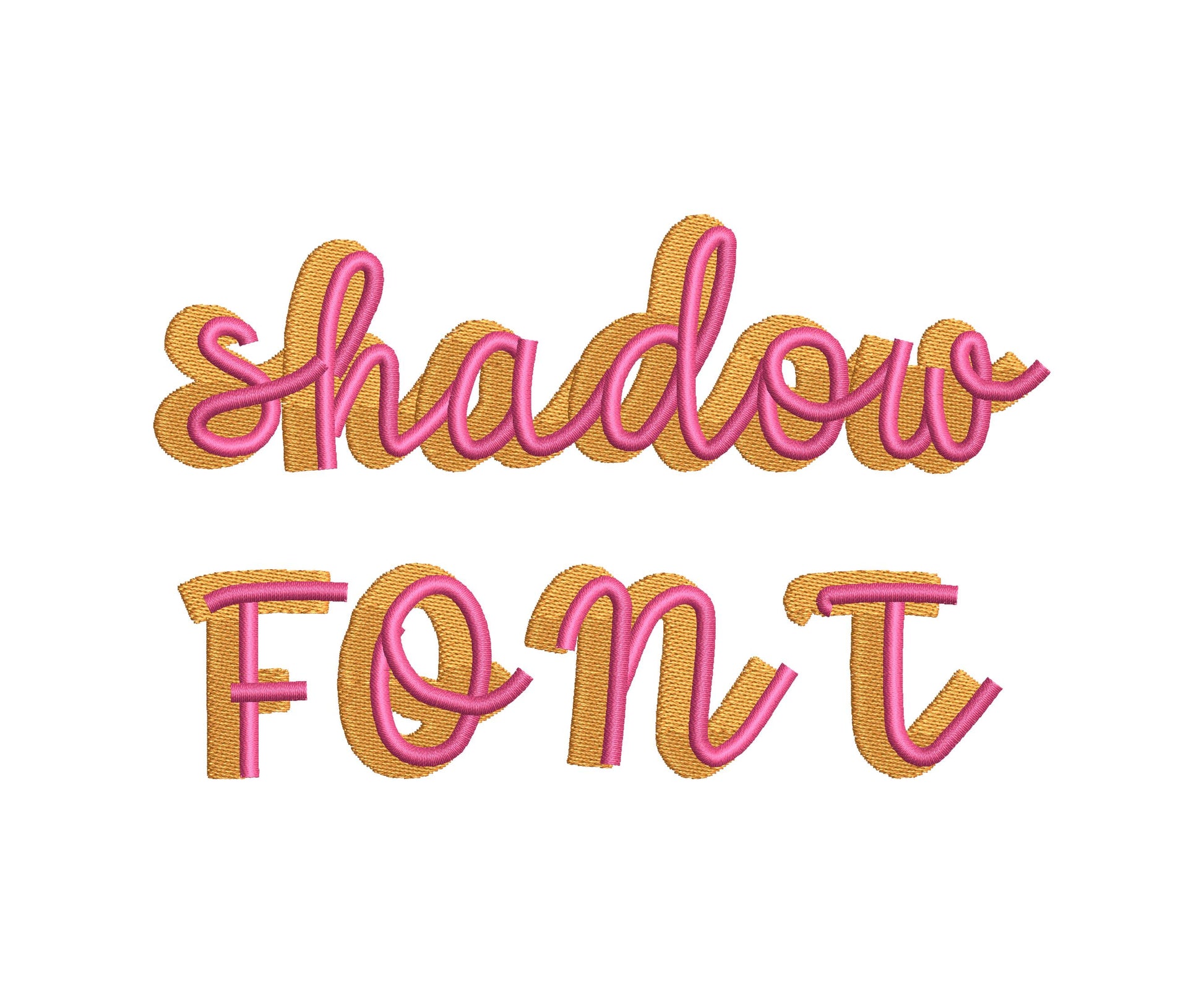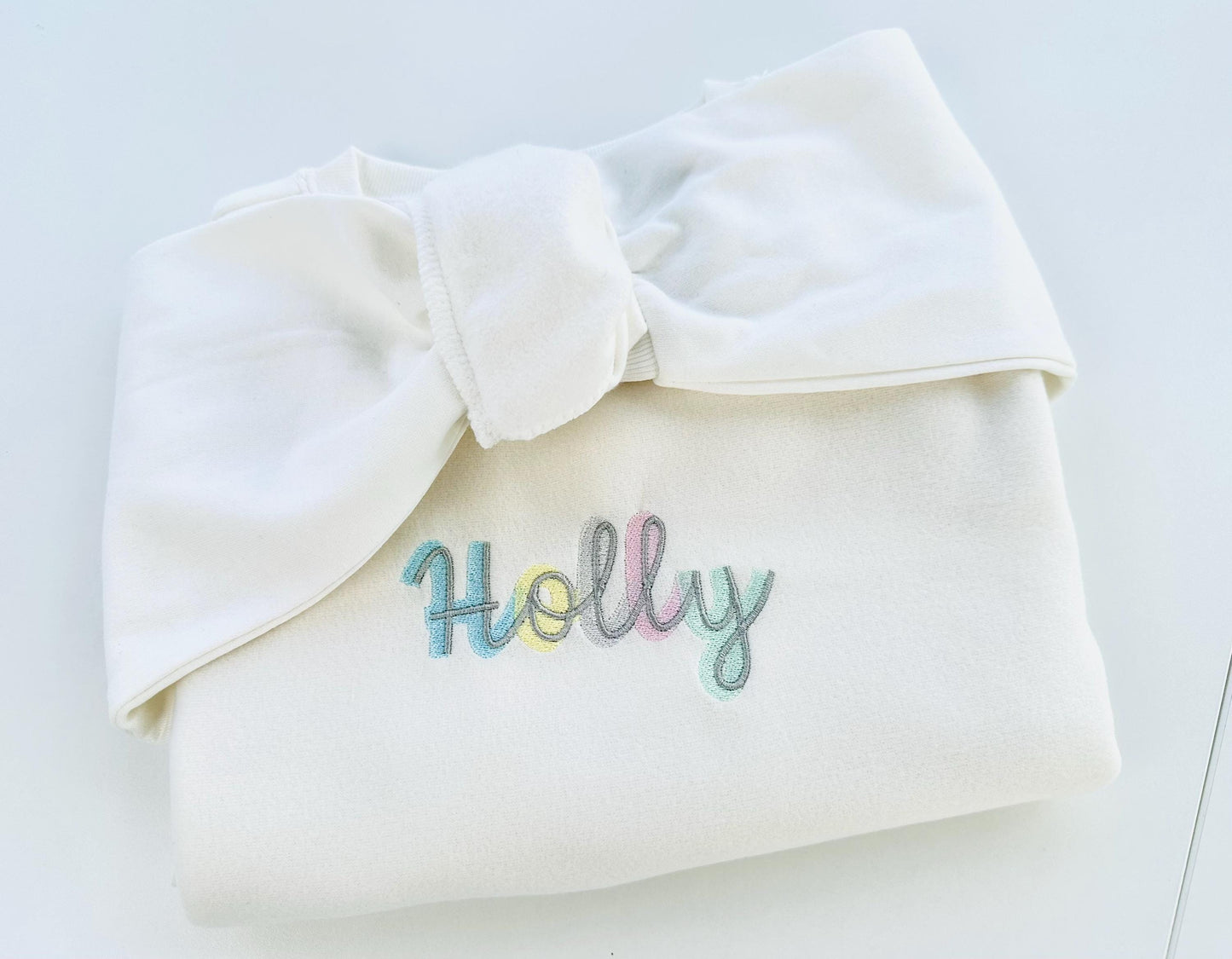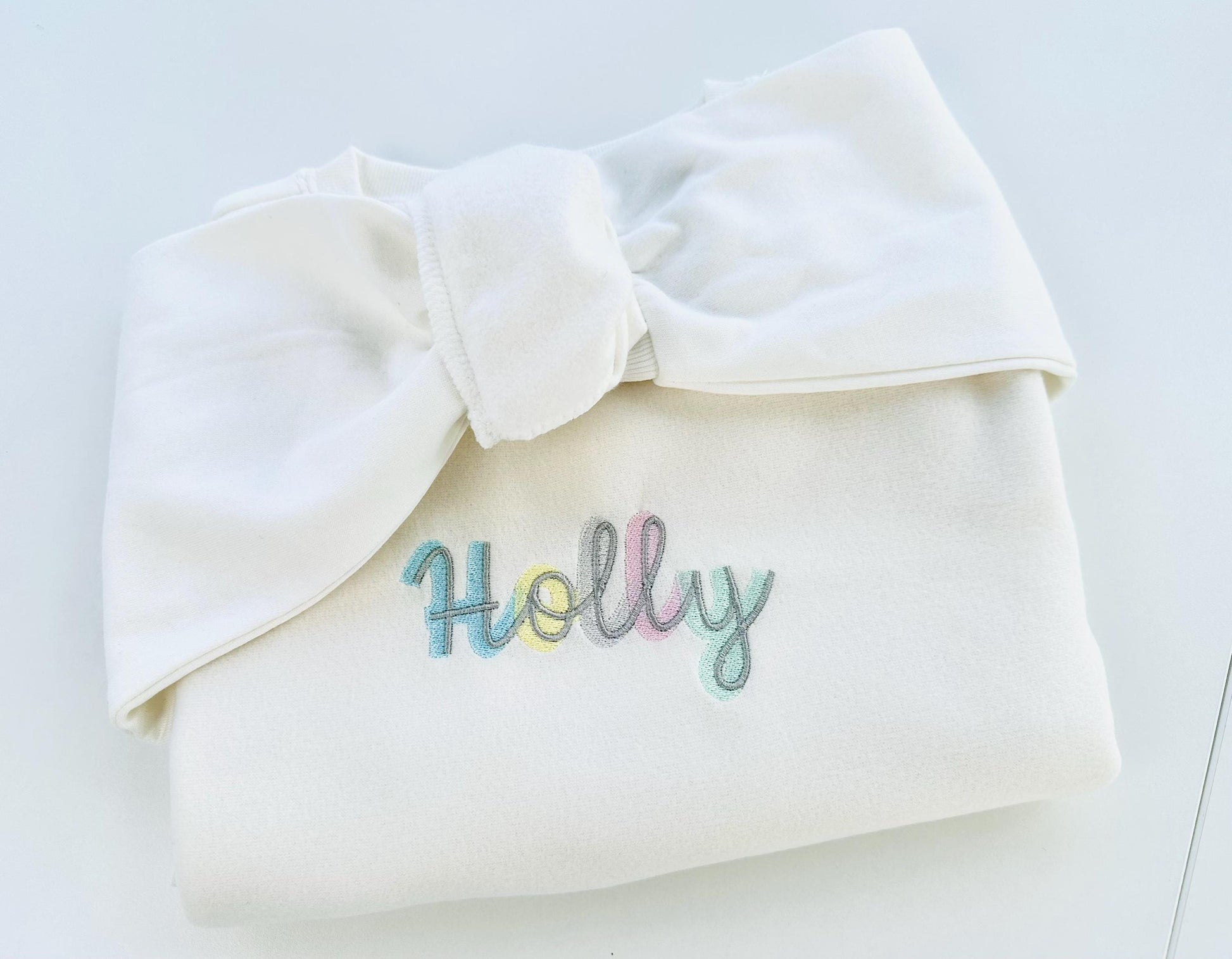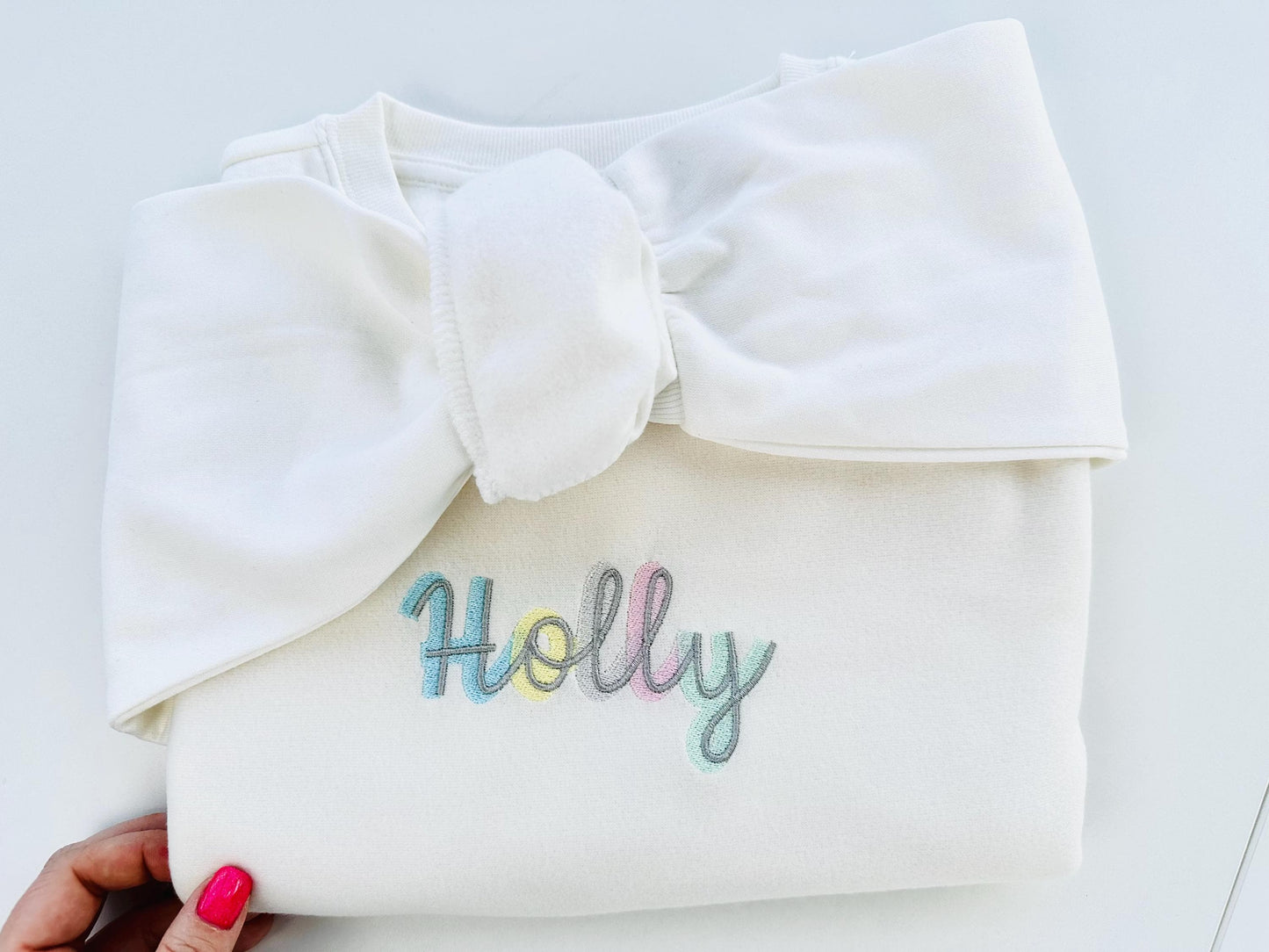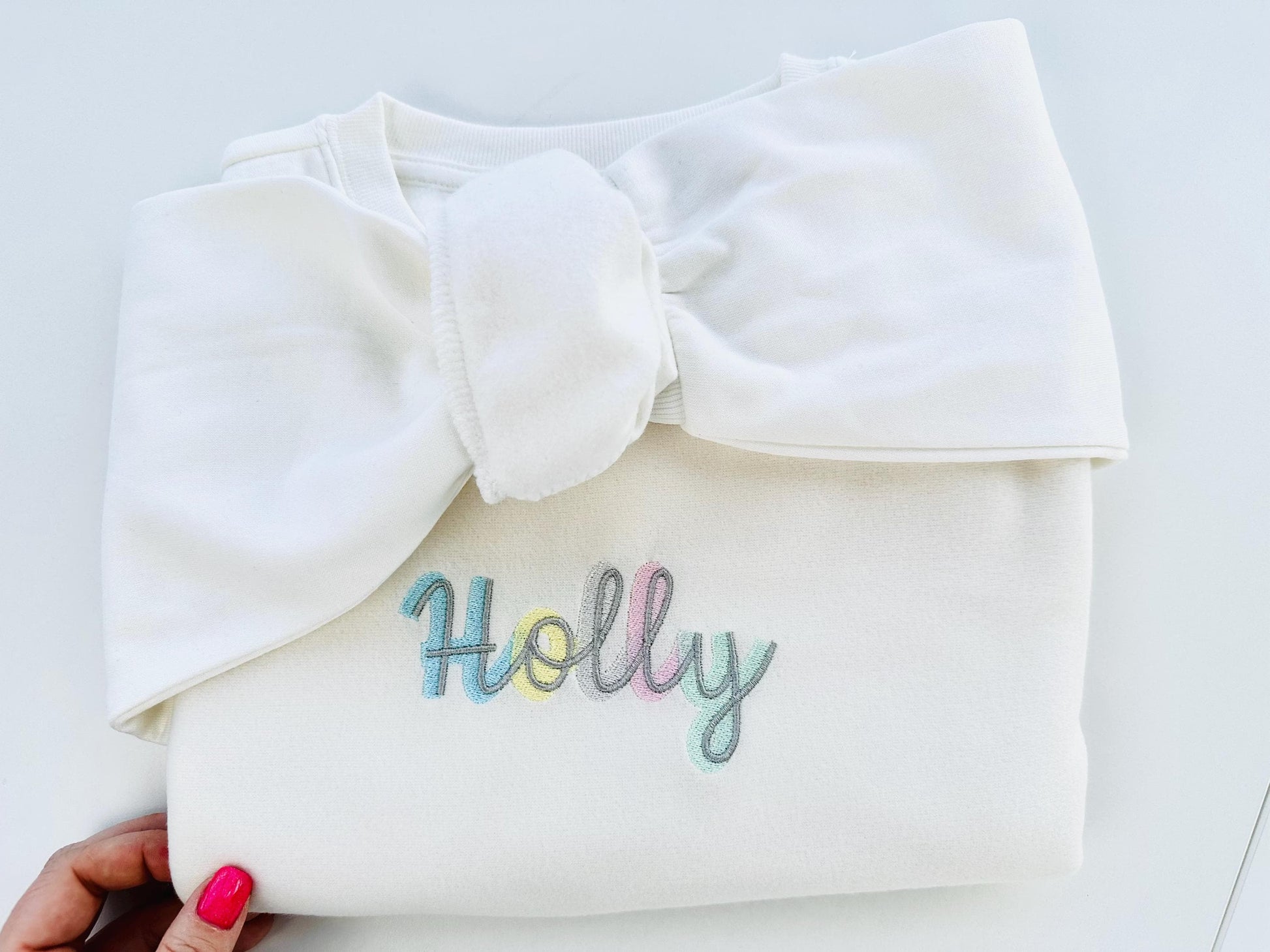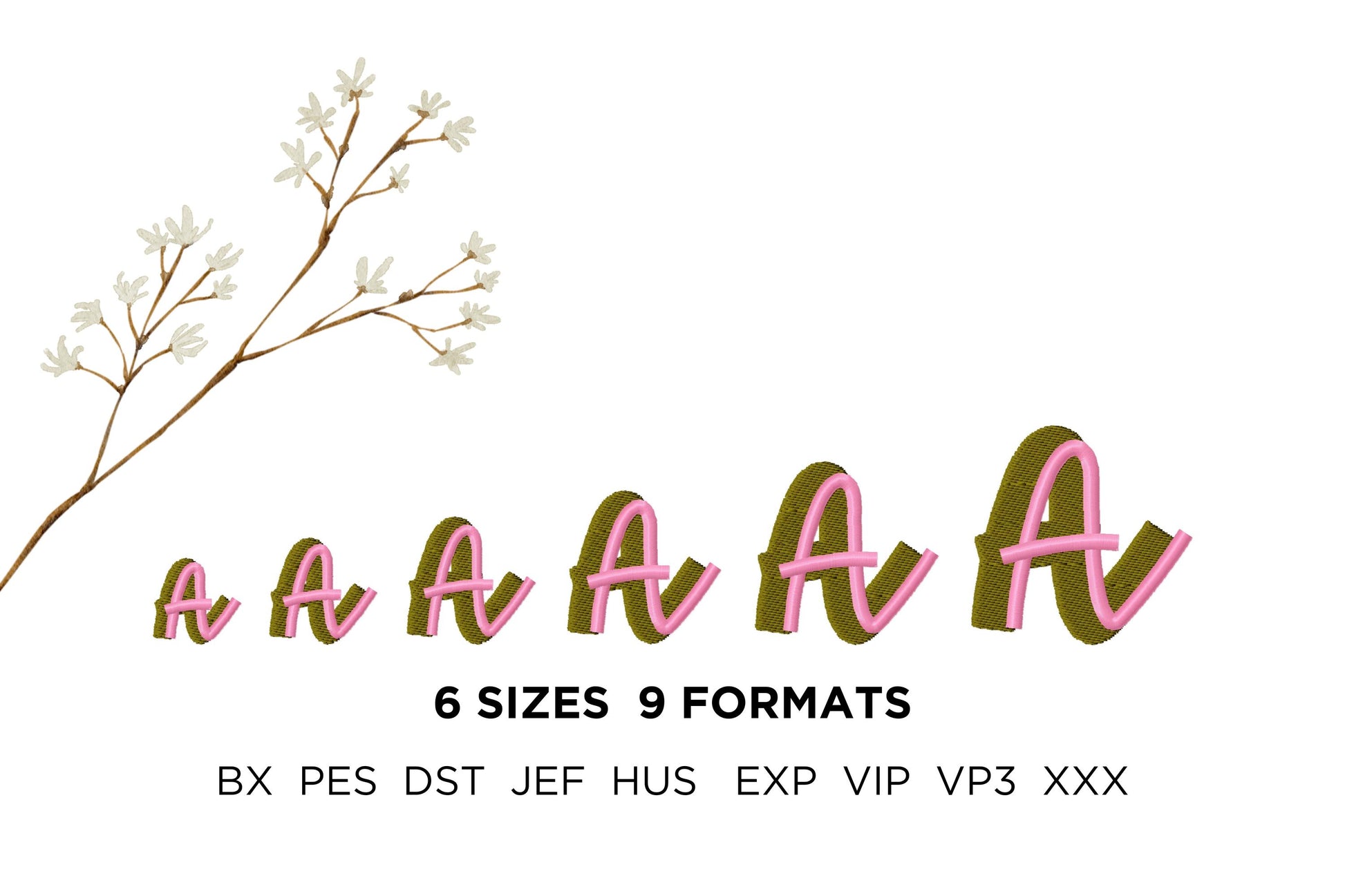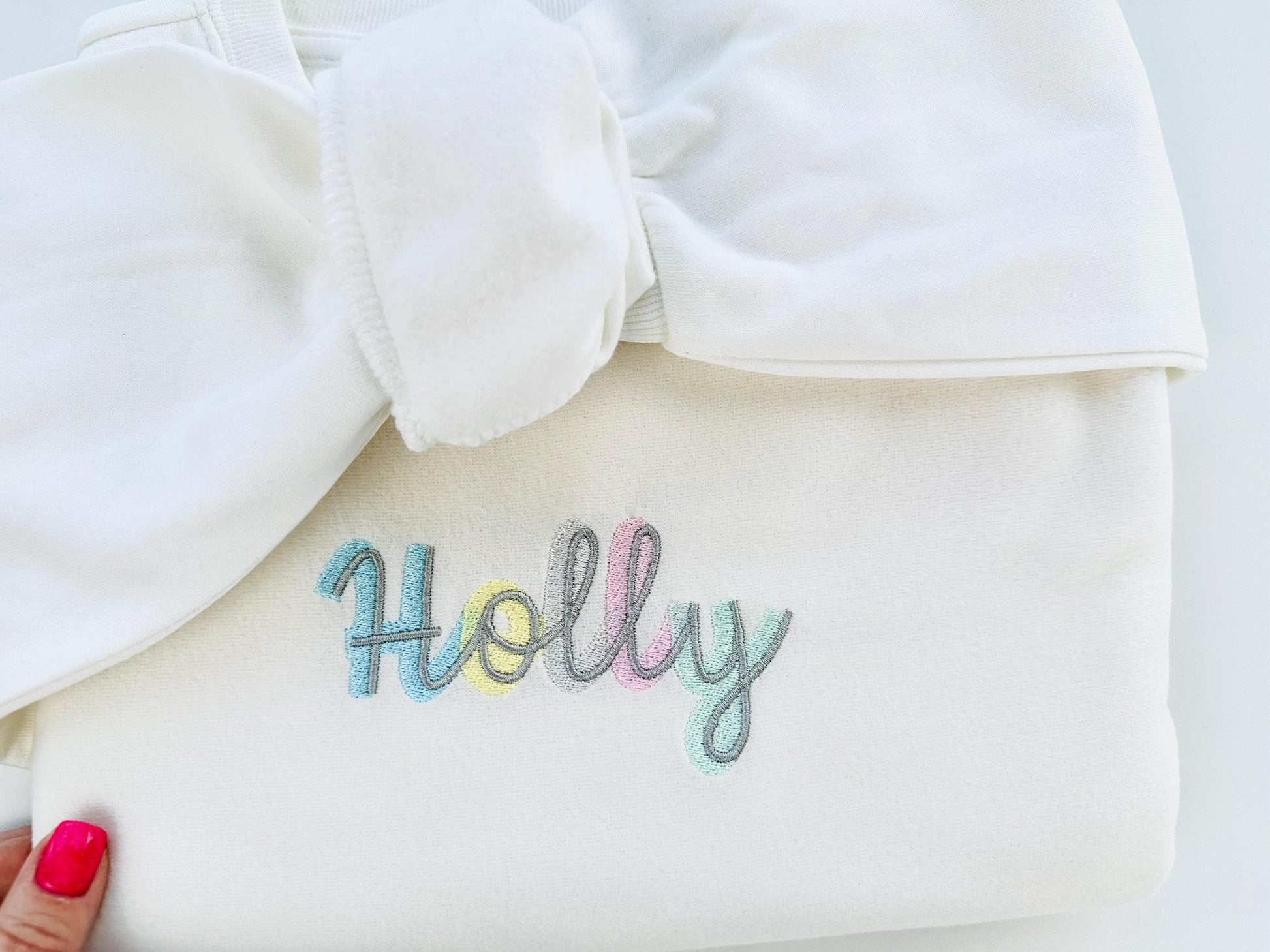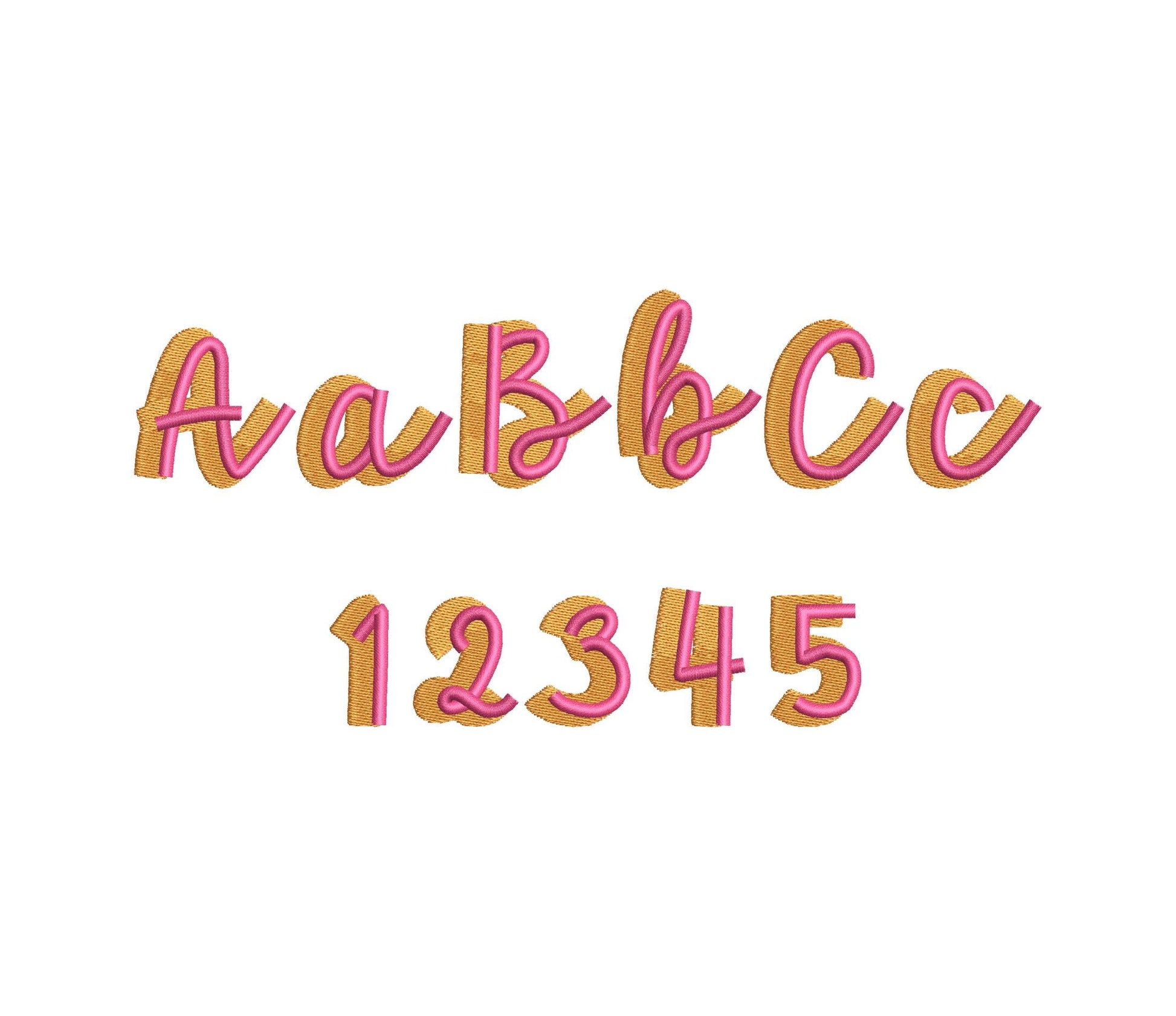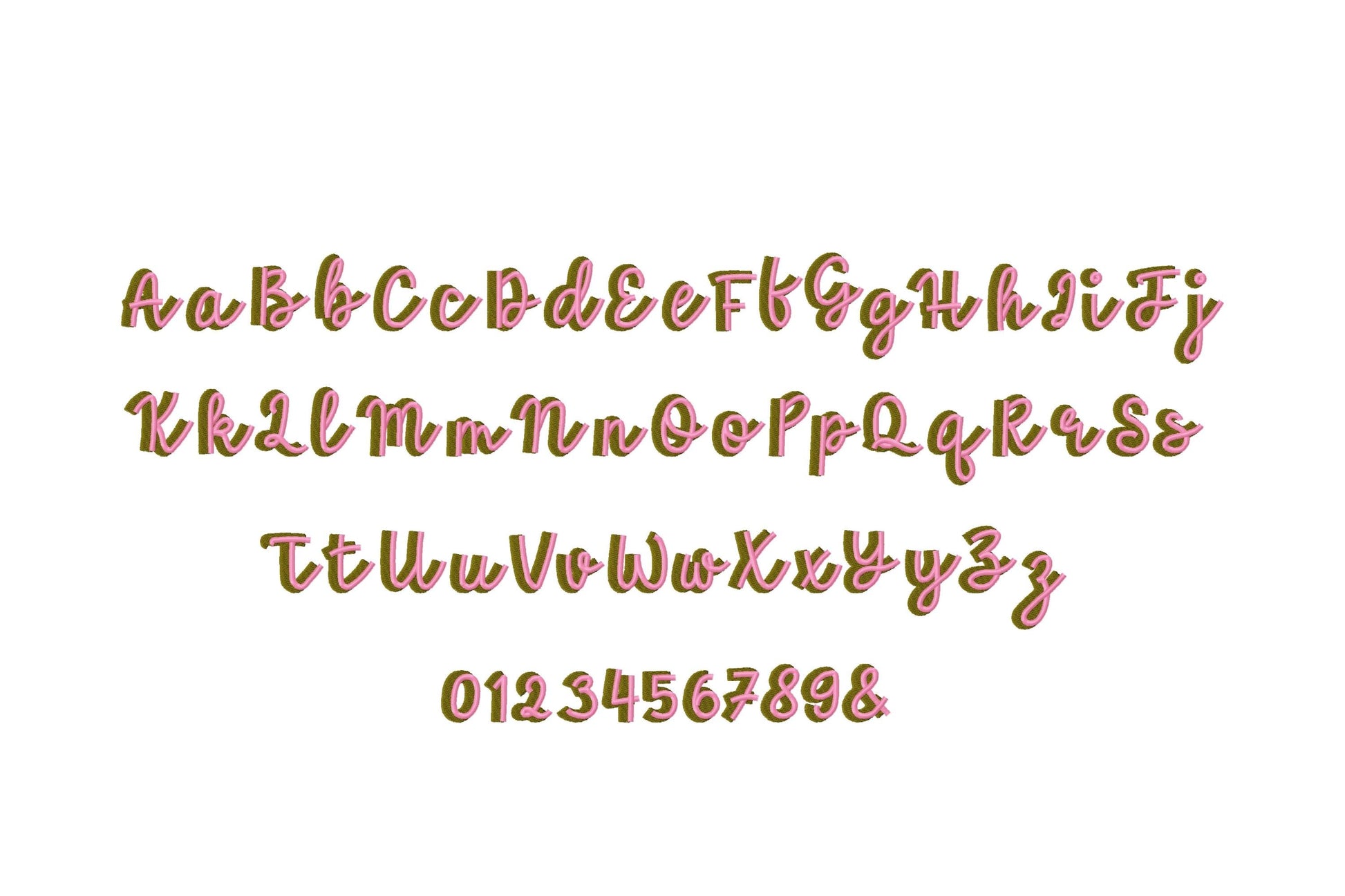
Or click to open the linkA small handwritten script with a two-color shadow. Lovely for names and monograms on shirts, bibs, pockets and gifts.
Uppercase and lowercase letters, numbers 0 to 9, & and ?. Six small sizes: 0.8, 1, 1.3, 1.5, 1.8 and 2.2 inches. Satin and fill stitch in two colors.